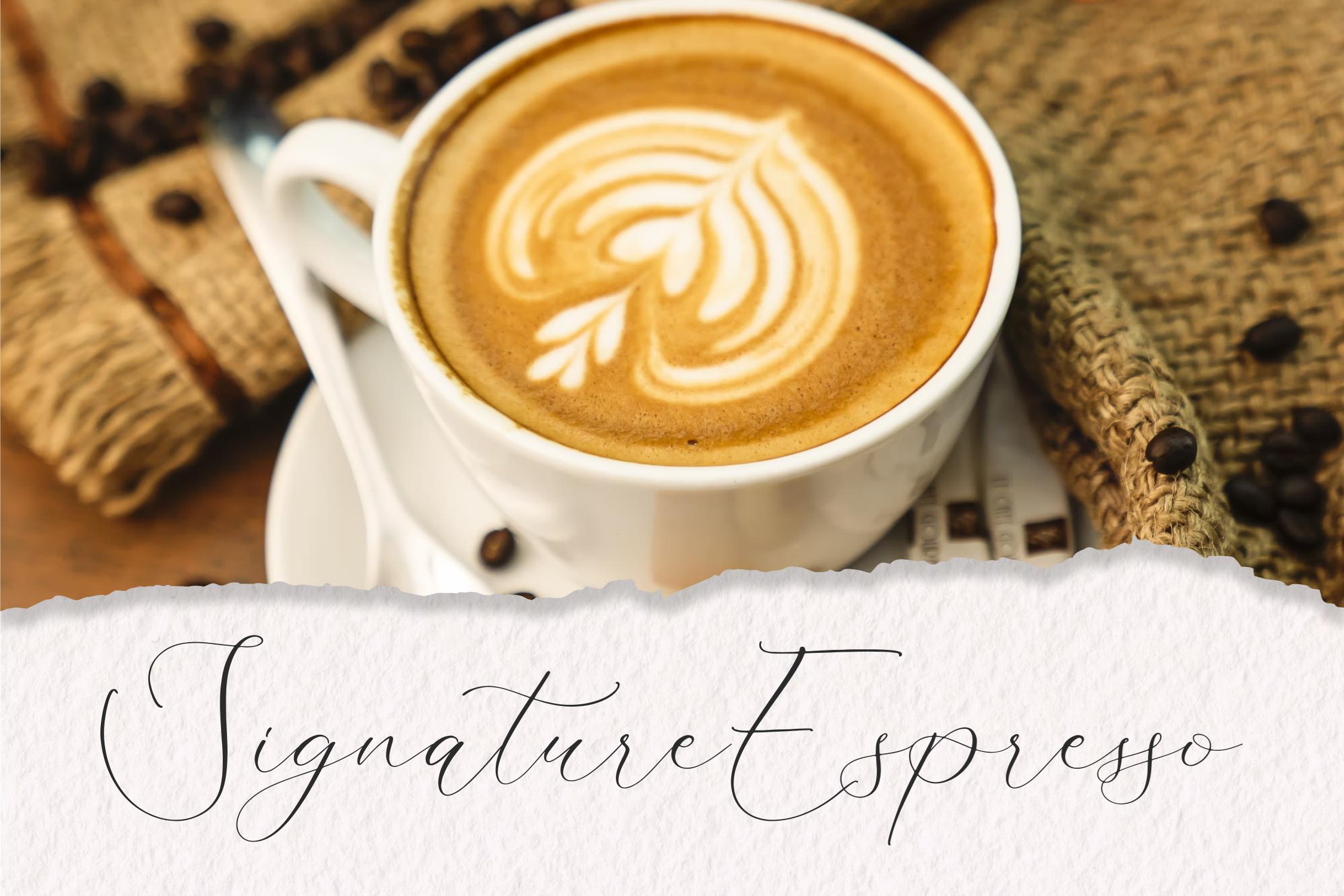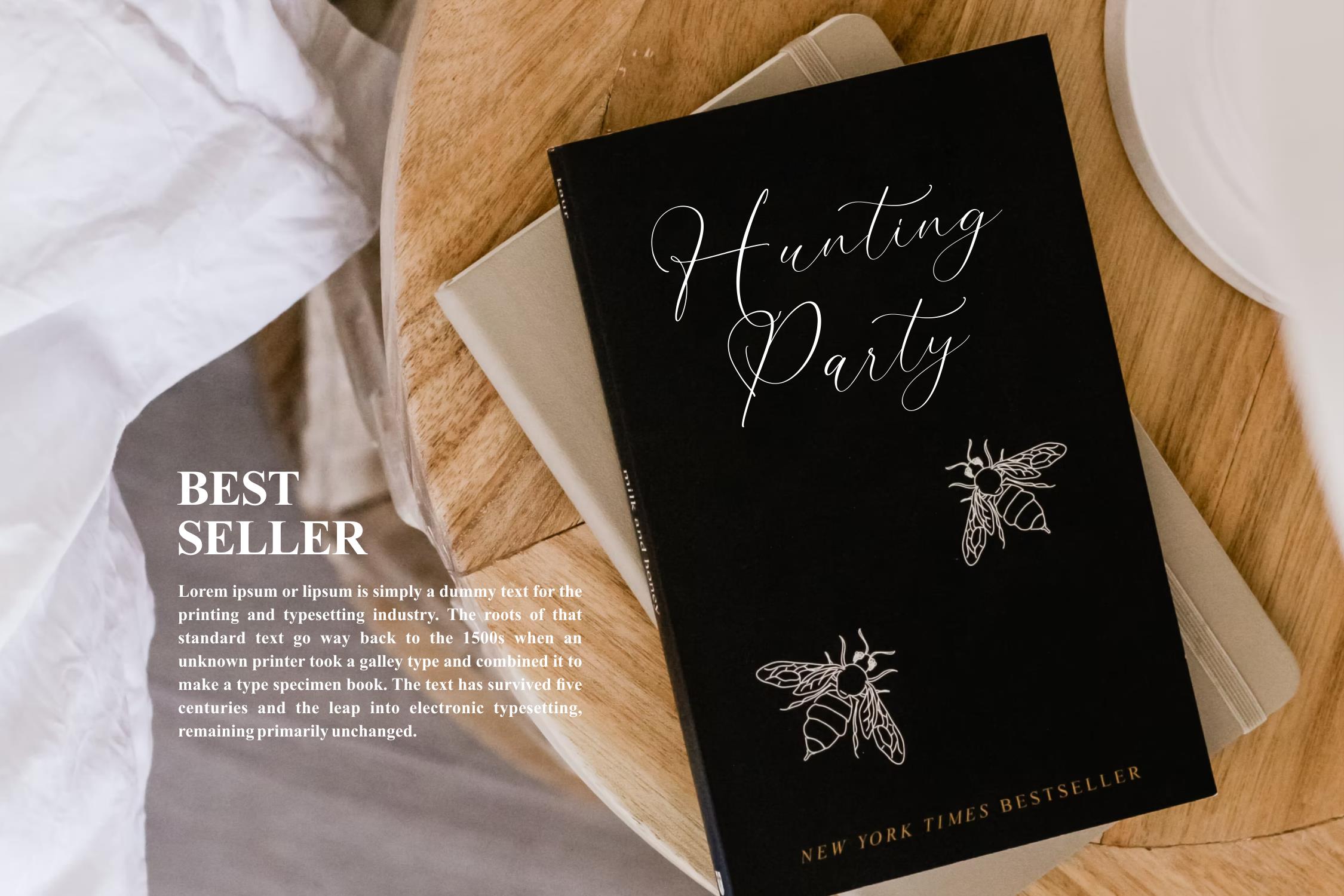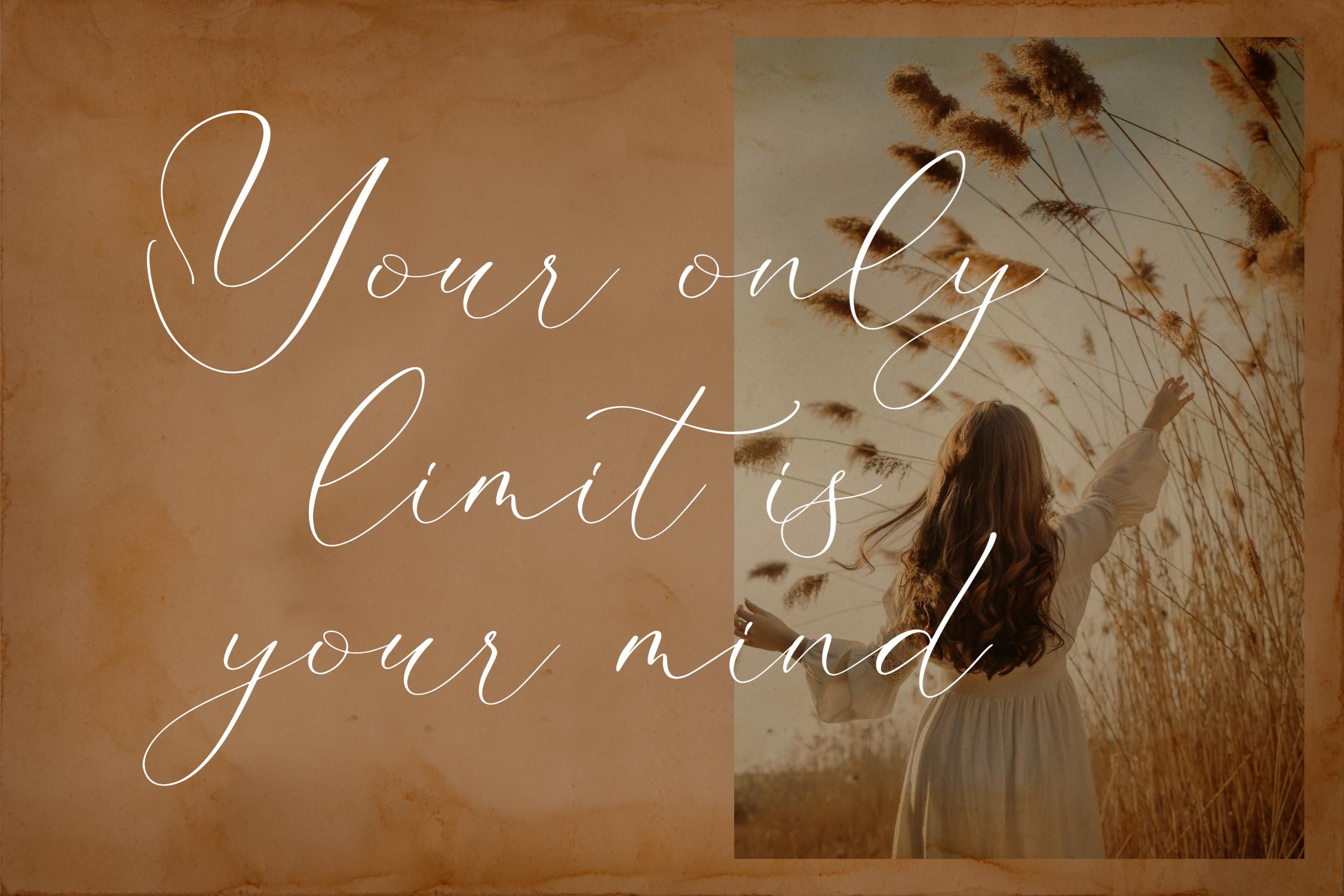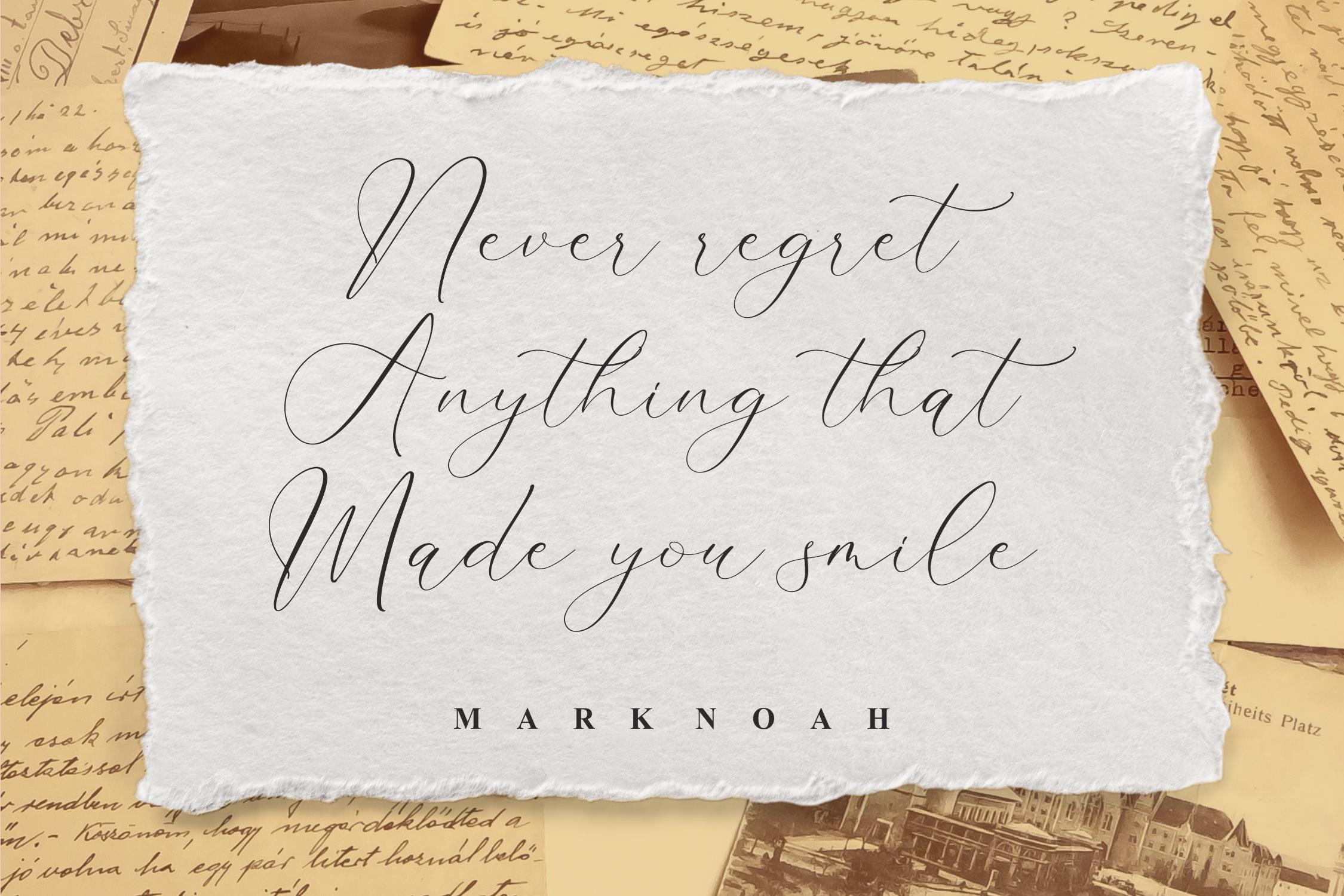
Nusantyra Cantiva Font
Nusantyra Cantiva Calligraphy Font
This is a beautiful script font, suitable for any projects such as: logos, branding projects, homeware designs, product packaging, mugs, quotes, posters, shopping bags, t-shirts, book covers, name card, invitation cards, greeting cards, label, photography, watermark, special events, and all your other lovely projects that need a beautiful script taste.